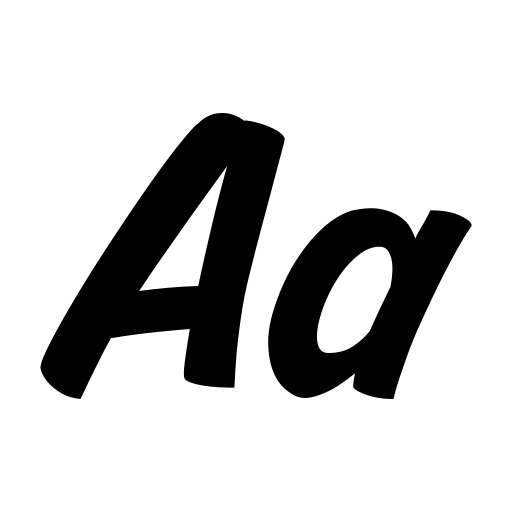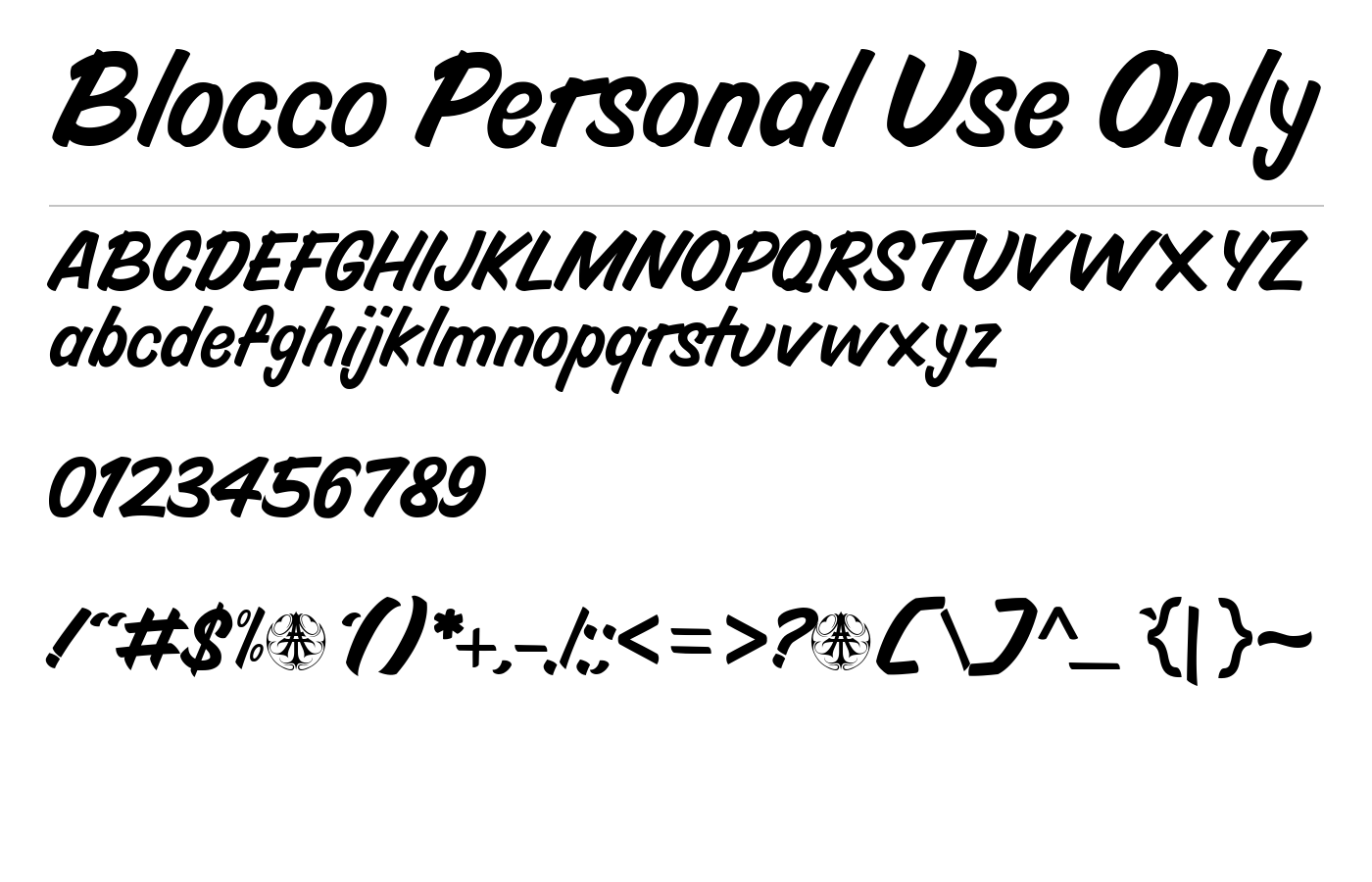
Blocco Personal Use Only is a playful and casual script font with a lively, handwritten feel. Its medium weight and slightly condensed letterforms, combined with smooth, rounded strokes and a dynamic slant, make it ideal for informal branding, fun headlines, and creative projects that want to convey energy and friendliness. This font works well where a personal touch and approachable style are needed, such as social media graphics, posters, or playful packaging.
Blocco Personal Use Only Font
About Blocco Personal Use Only Font